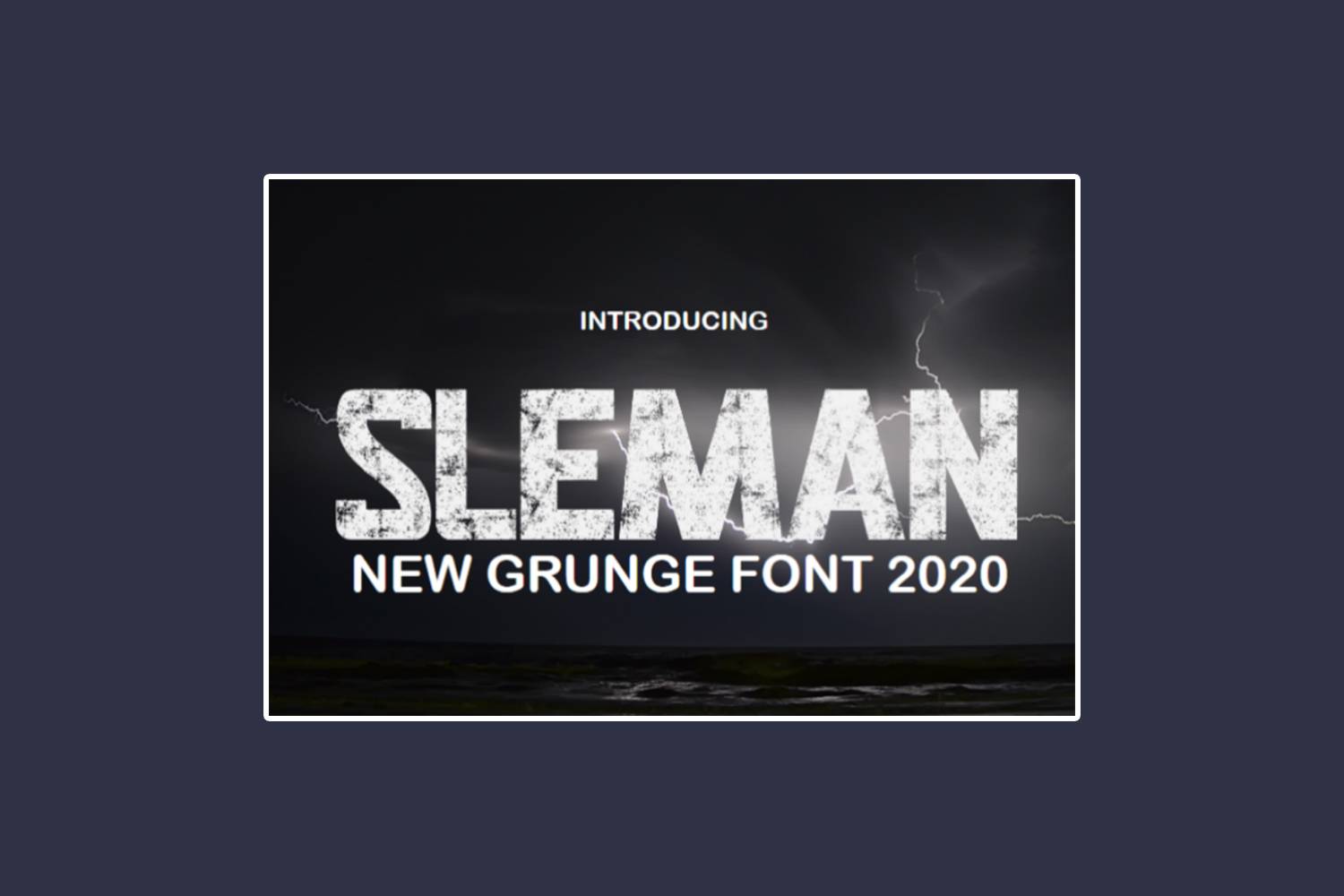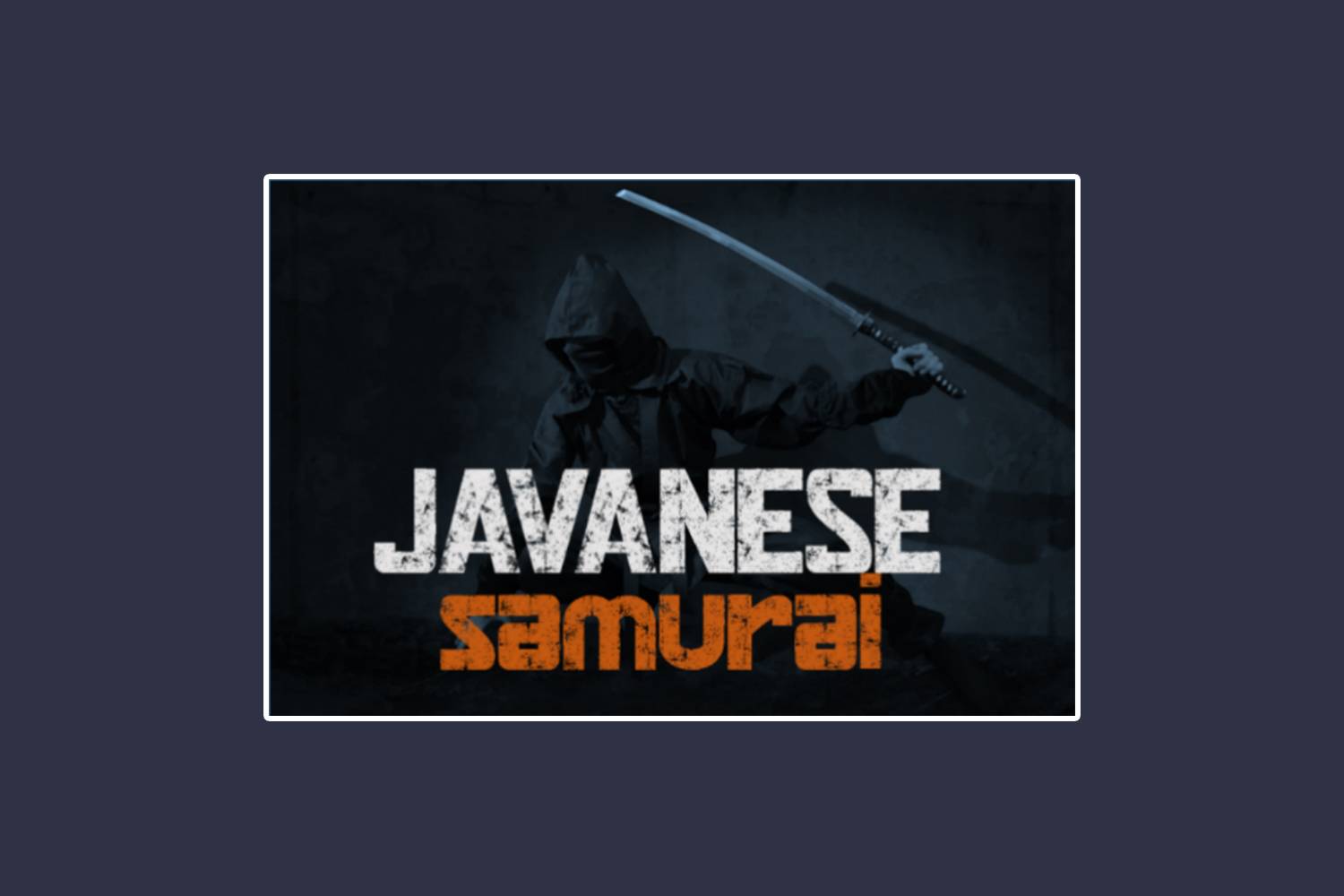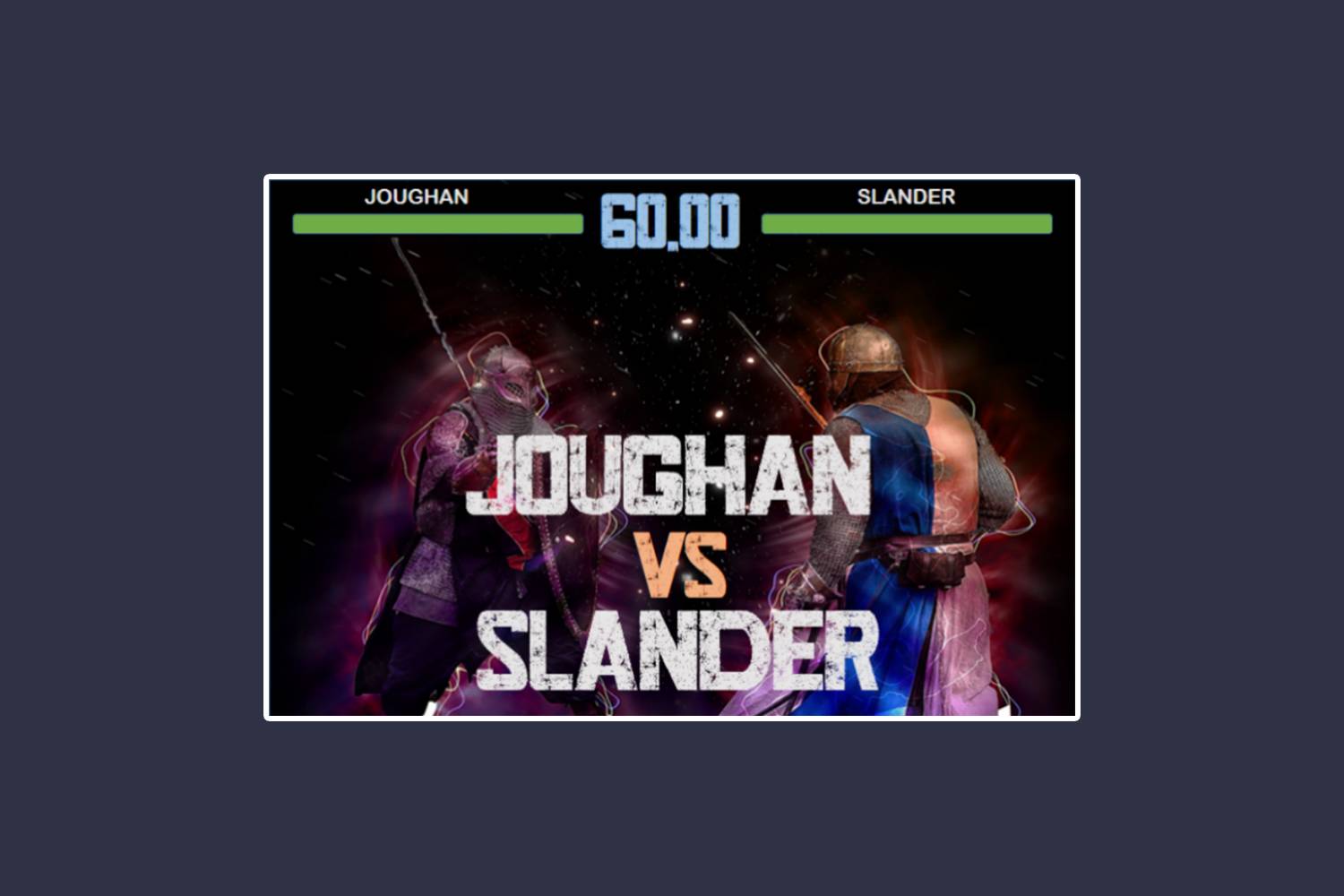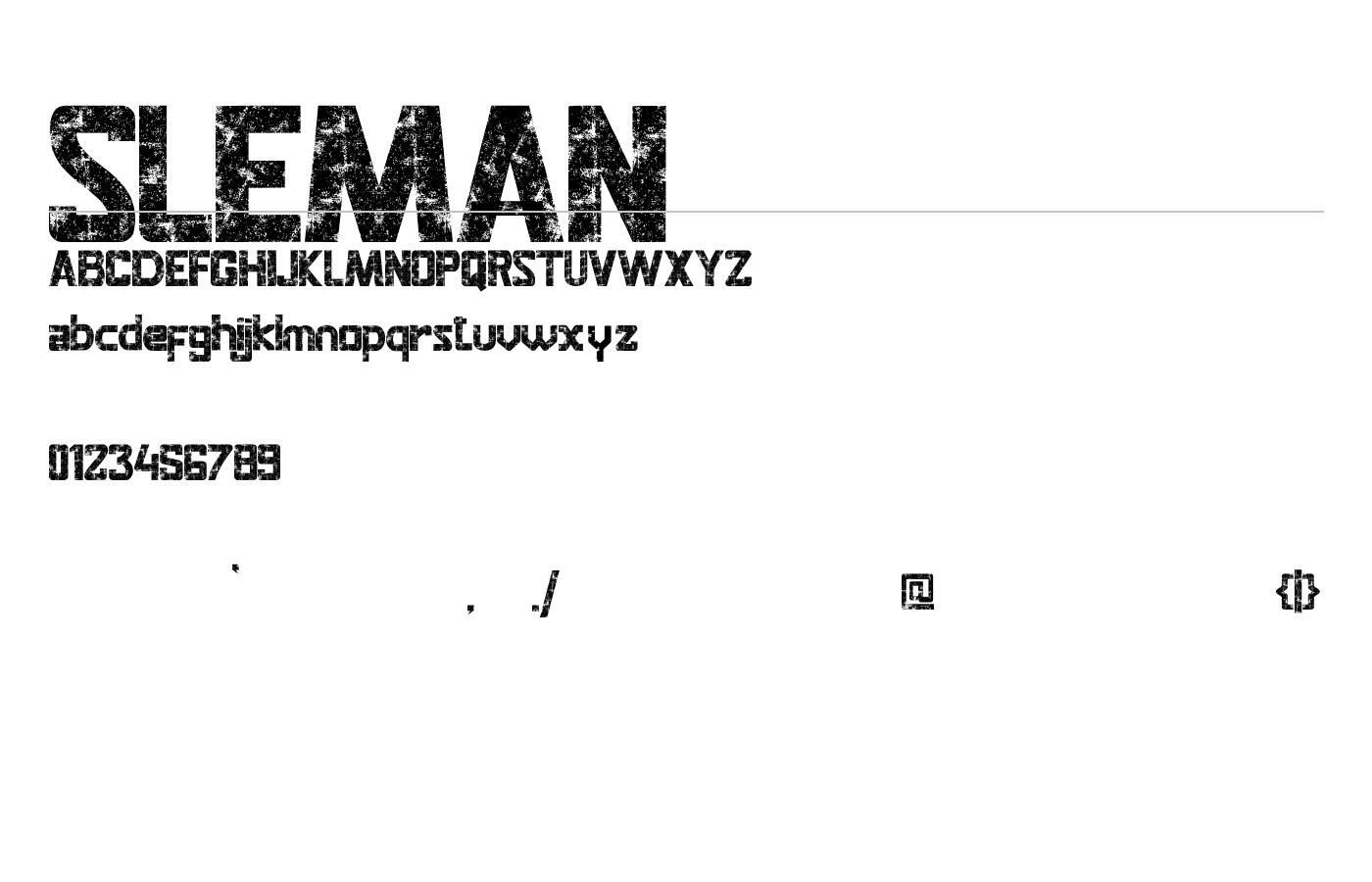
Sleman is a bold, condensed sans serif font with a rough, distressed texture that gives it a gritty and industrial feel. Its strong, tightly spaced letterforms with a medium x-height and uniform stroke weight make it ideal for striking headlines, branding, and designs seeking an edgy, urban vibe. This font works especially well in posters, logos, and packaging where a raw, energetic style is desired.
Sleman Font
About Sleman Font